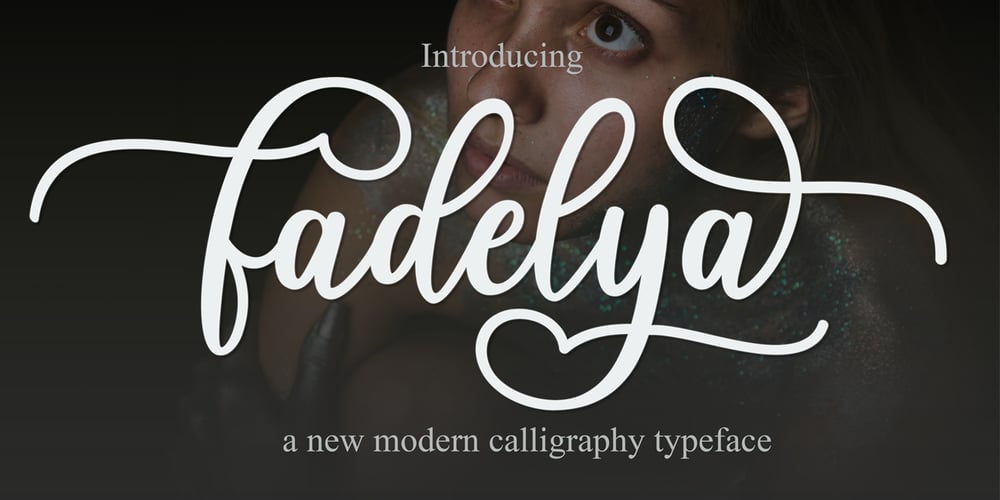
Fadelya
Fadelya font
Fadelya Font Family was designed by Muhammad Rizal and published by MrLetters. Fadelya contains 1 styles and family package options. NTRODUCINGFadelya Script is a modern calligraphy font with the current handwriting style, this font is perfect for branding, wedding invites, magazines, mugs, business cards, quotes, posters, and more, you can try first if you want to buy this font.to use a variety of flying machines, you need a program that supports OpenType features such as Adobe Photoshop Cs / Adobe Photoshop CC, Adobe Illustrator CS / Adobe Illustrator CC, Adobe Indesign and Corel Draw and many more programs that support OpenType.If you do not have a program that supports OpenType, you can access all the alternate glyphs using Font Book (Mac) or Character Map (Windows)If you have any question, don’t hesitate to contact me by emailThanks and happy designing :-)Thank You for purchase!